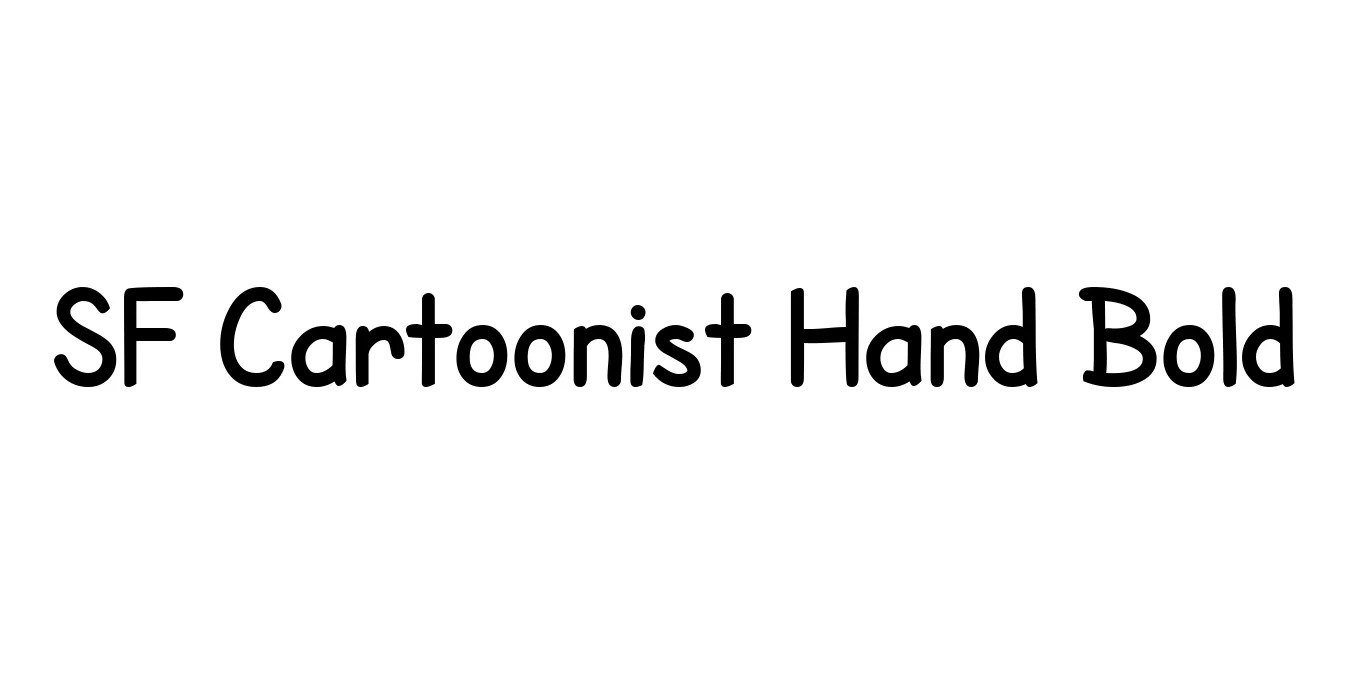
SF Cartoonist Hand Bold
Designed by ShyFoundry
SF Cartoonist Hand Bold is a standout weight within the popular SF Cartoonist Hand family, crafted by the design team at ShyFoundry. Developed to emulate the charming and slightly irregular lettering of classic comic books, this font family bridges the gap between digital precision and hand-drawn warmth. The Bold variant specifically provides extra weight and impact, making it ideal for readers who need clarity without sacrificing the playful, informal spirit of the typeface.
Throughout its history, this font has become a go-to choice for designers looking for a human-centric aesthetic. Its rounded terminals and energetic stroke patterns make it incredibly effective for title sequences, children's literature, and user interfaces that aim to feel welcoming and accessible. It remains a staple in the creative community for its ability to convey dialogue and narrative in a way that feels personal and expressive.
SF Cartoonist Hand Bold Best Uses
Excellent for dialogue bubbles and narrative captions due to its legibility.
Ideal for casual game interfaces and level-up screens.
Perfect for book covers, educational posters, and toy packaging.
Great for call-to-action buttons and fun, social media advertisements.